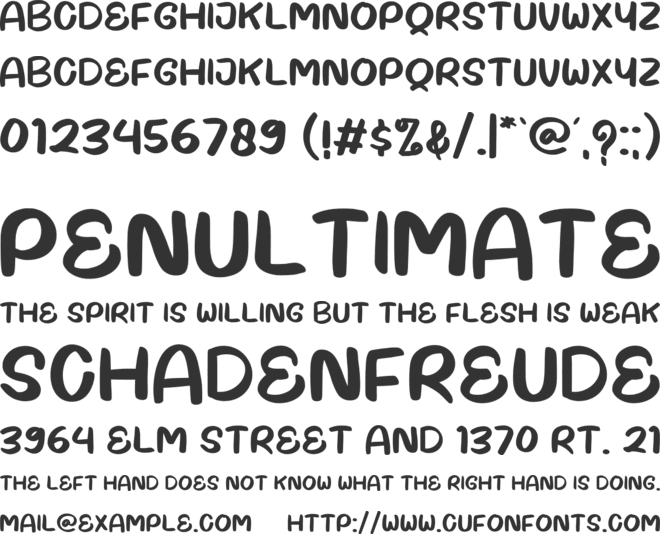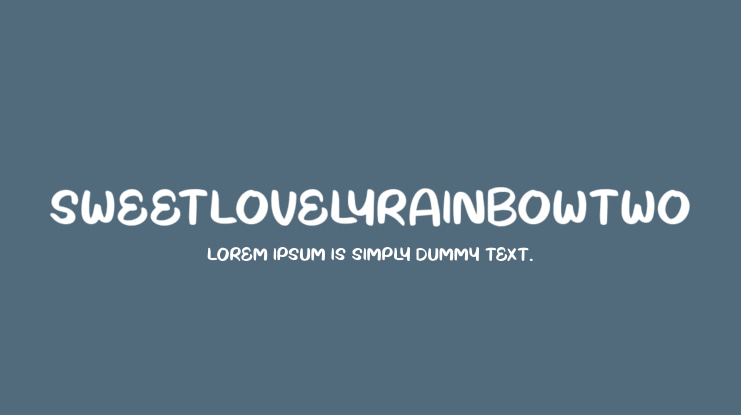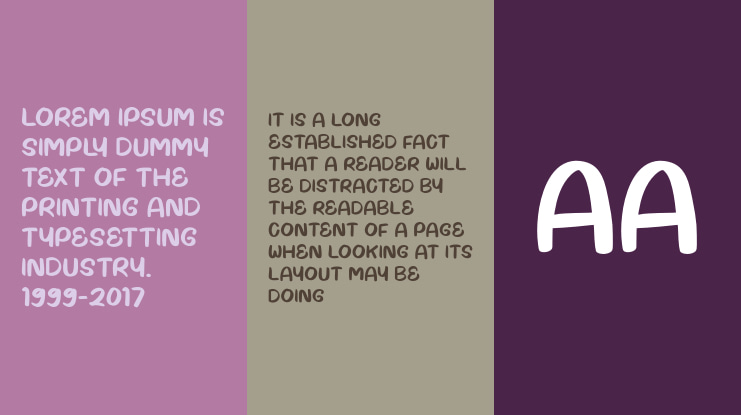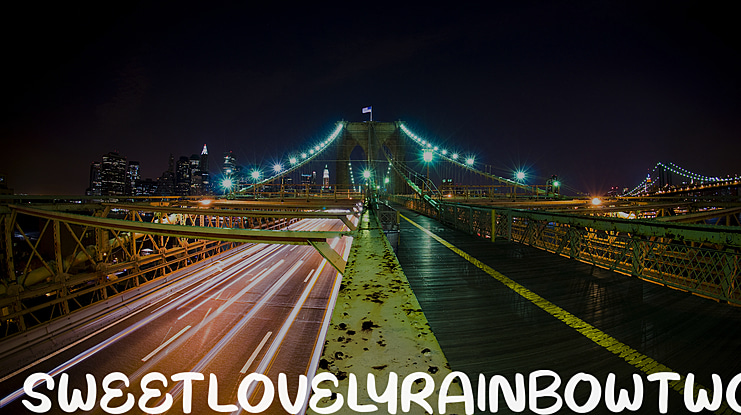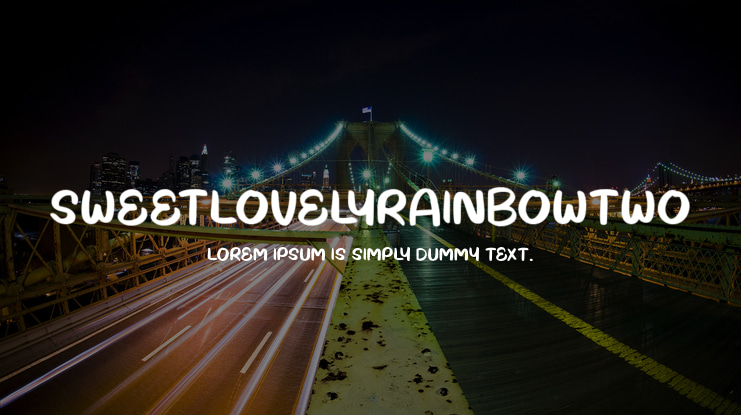
SweetLovelyRainbowTwo Font
This is a cute and relaxed trio styled handwritten font. Its natural and unique style makes it suitable for a variety of design ideas. Add it confidently to your projects, and you will love the results.